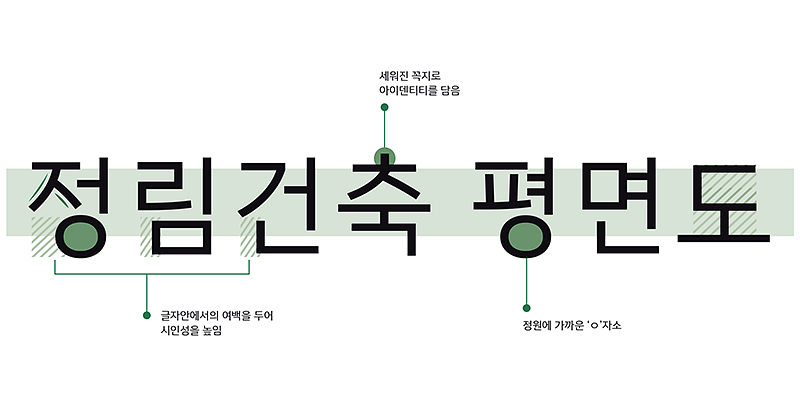
Kim Jung Chul Gothic Font Free Download
Kim Jung Chul Gothic Font Free Download is a modern Korean Gothic (sans-serif) typeface designed for clarity, balance, and refined minimalism. Ideal for editorial content, signage, user interfaces, branding, and multilingual layouts, this font blends clean structure with elegant readability in both Hangul and Latin scripts.
Crafted with a geometric foundation and smooth stroke transitions, Kim Jung Chul Gothic Font Free Download delivers a harmonious typographic experience across screen and print. It’s optimized for high legibility at various sizes, making it especially suitable for mobile apps, websites, publications, and professional documents.
This typeface is notable for its versatility and neutral tone—perfect for projects where text should support the design without overwhelming it. Whether used in headlines or body text, it maintains a modern, polished appearance that aligns with contemporary Korean and global aesthetics.
With Kim Jung Chul Gothic, you get more than just a font—you get a reliable, stylish tool that bridges cultures, enhances legibility, and adds a clean, professional finish to every project.